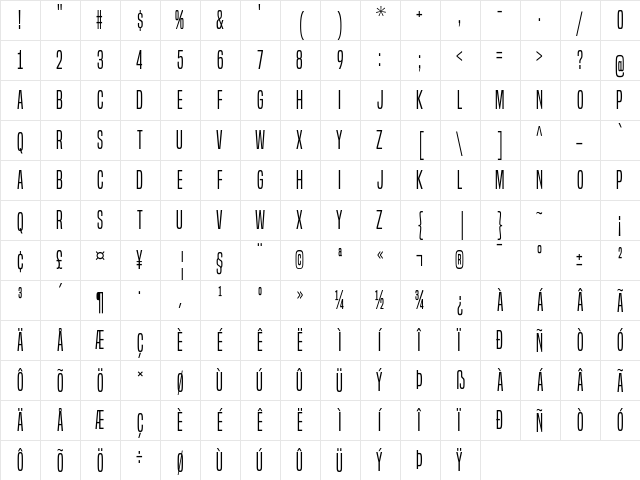
Built Titling Light Font Preview
Built Titling Light
Built Titling Light Font Details
Design Context for Built Titling Typeface
Built Titling offers clean, dependable letterforms without strong stylistic allegiance, making it a practical choice for designers who need flexibility. The delicate stroke weight brings airiness and refinement to layouts.